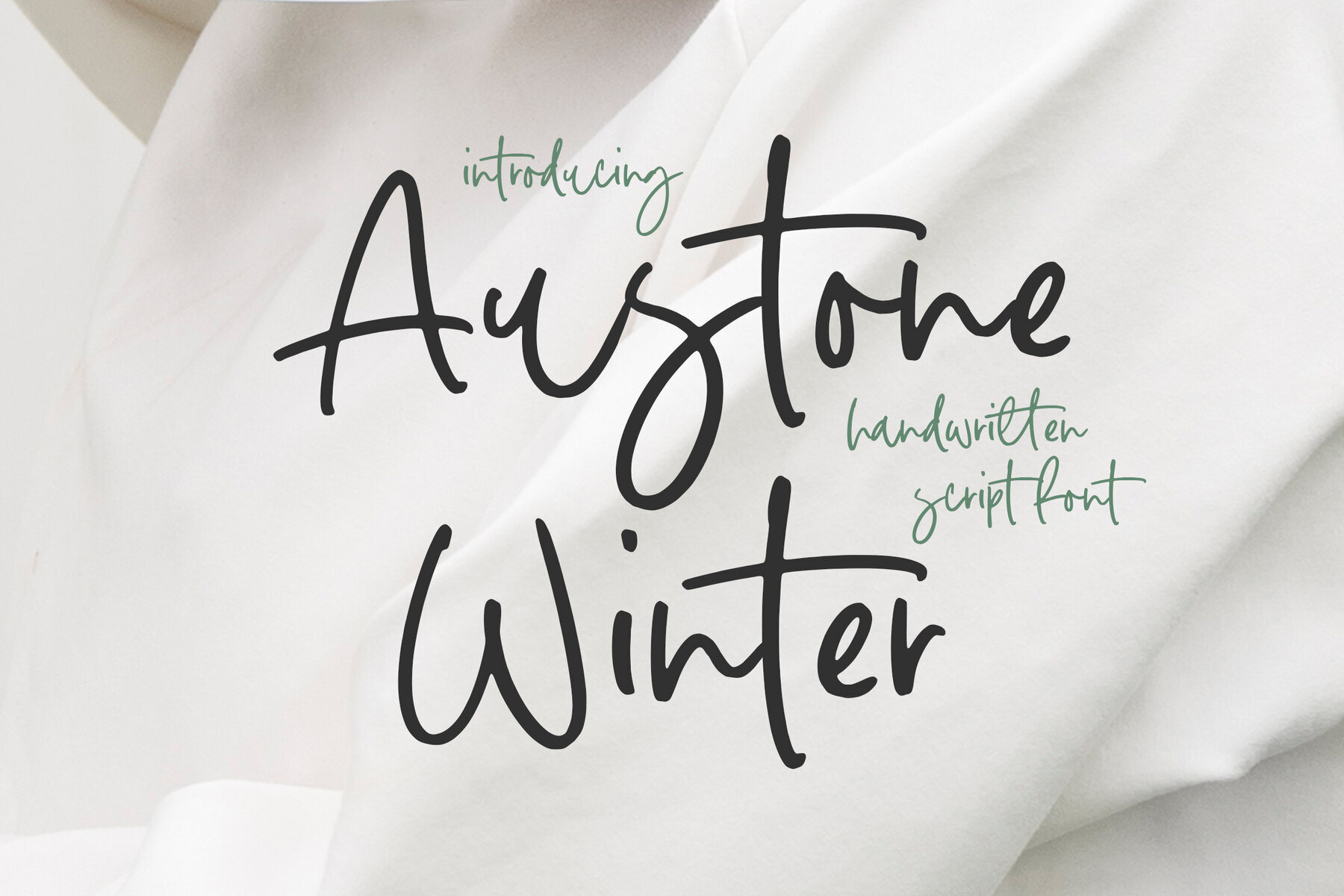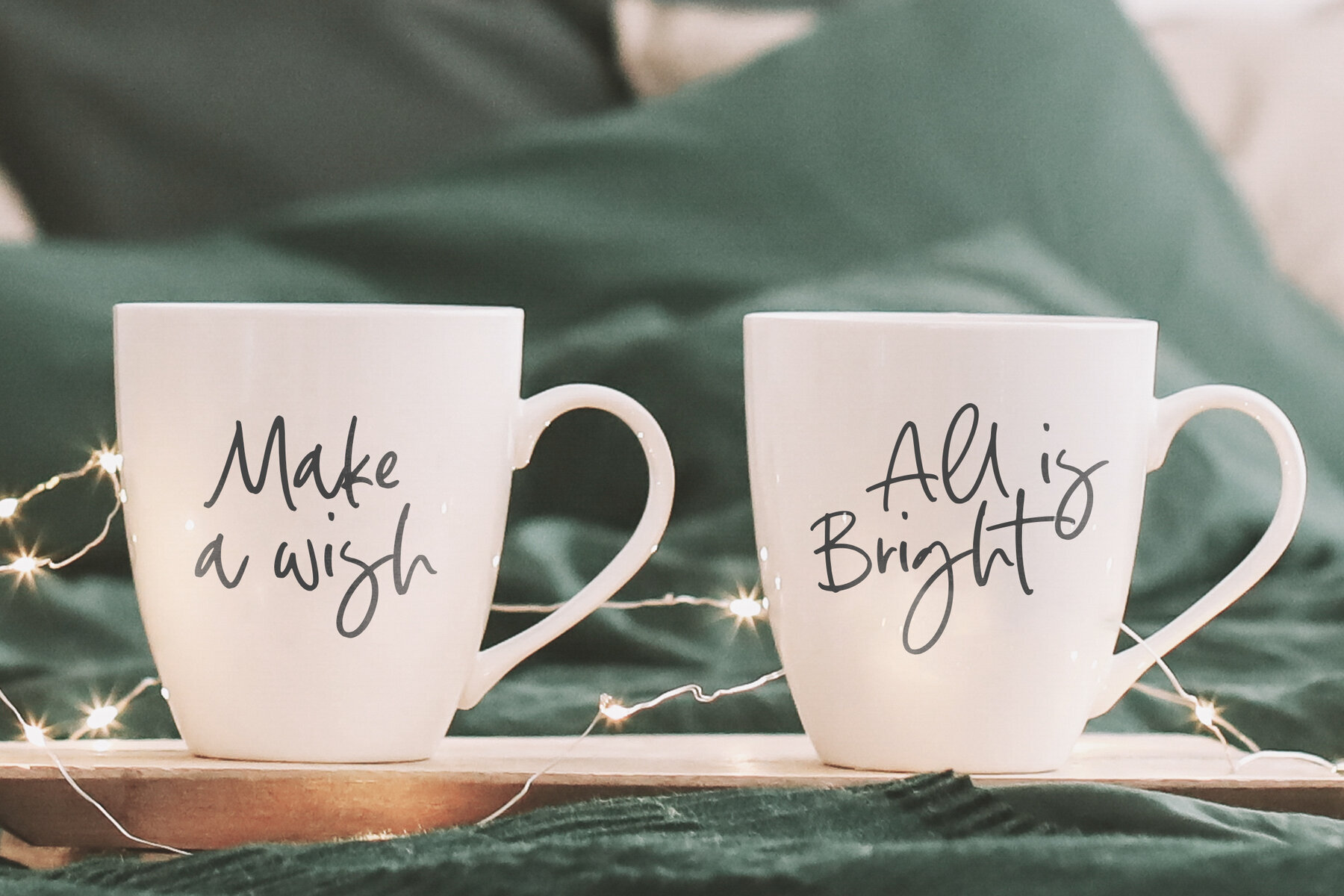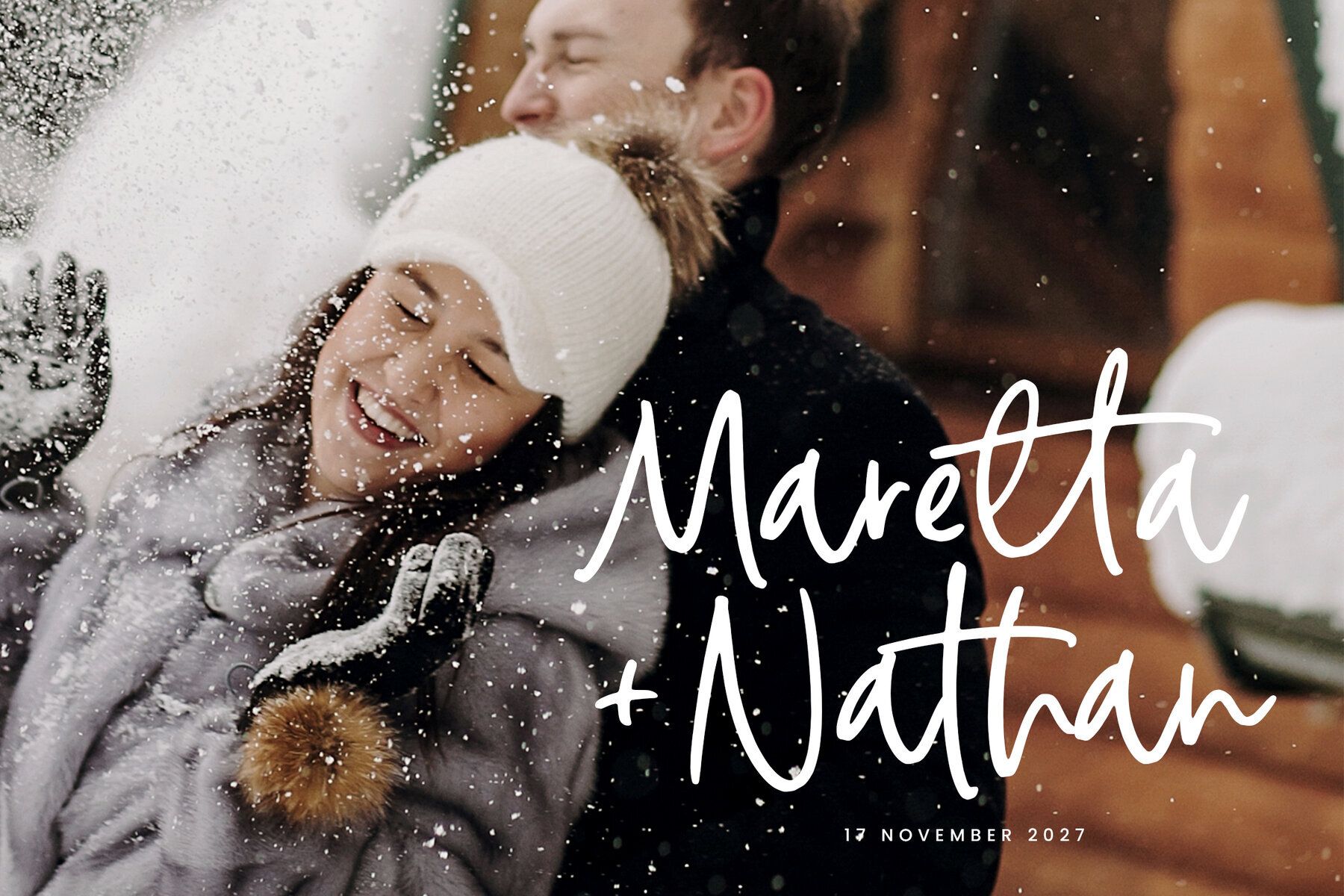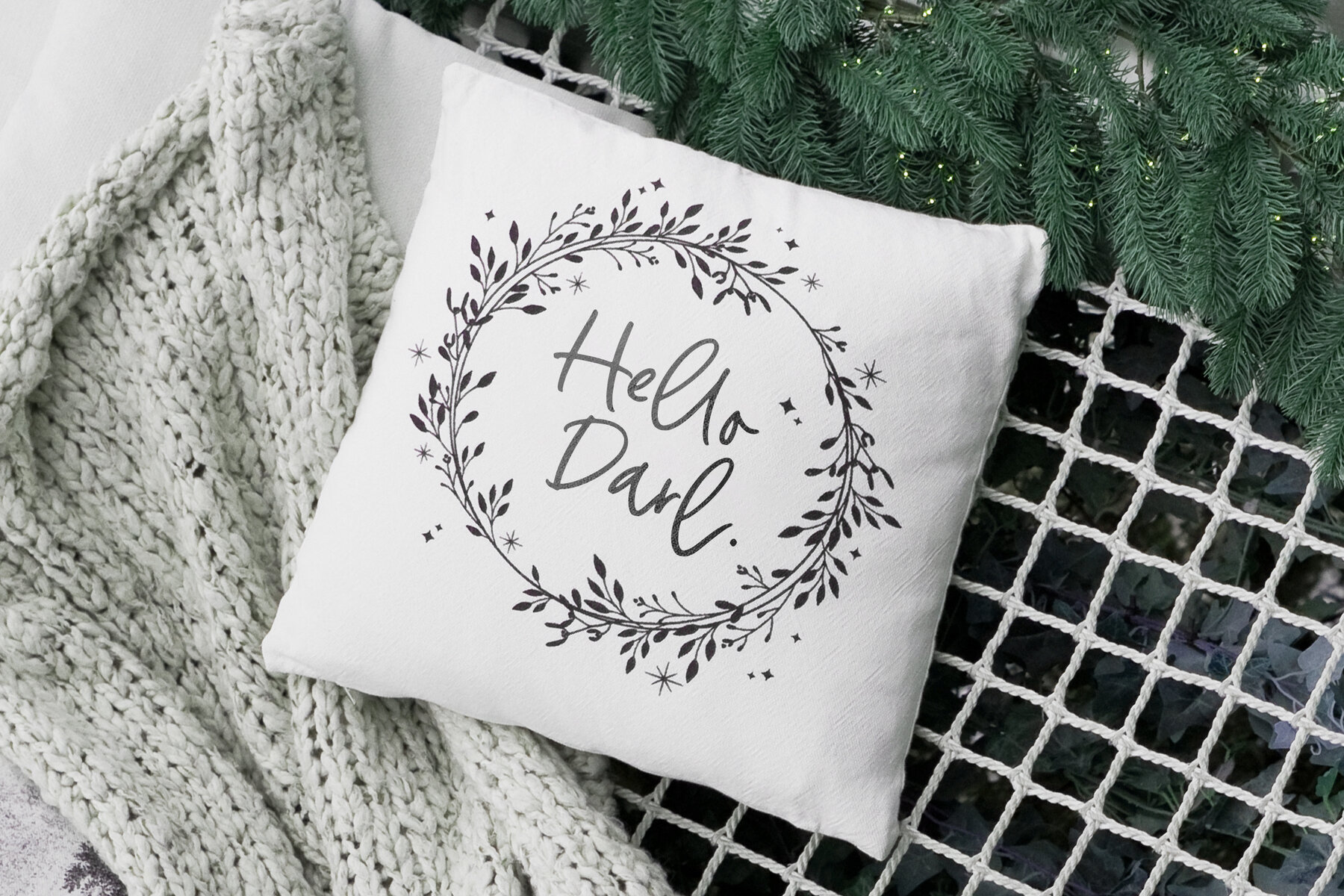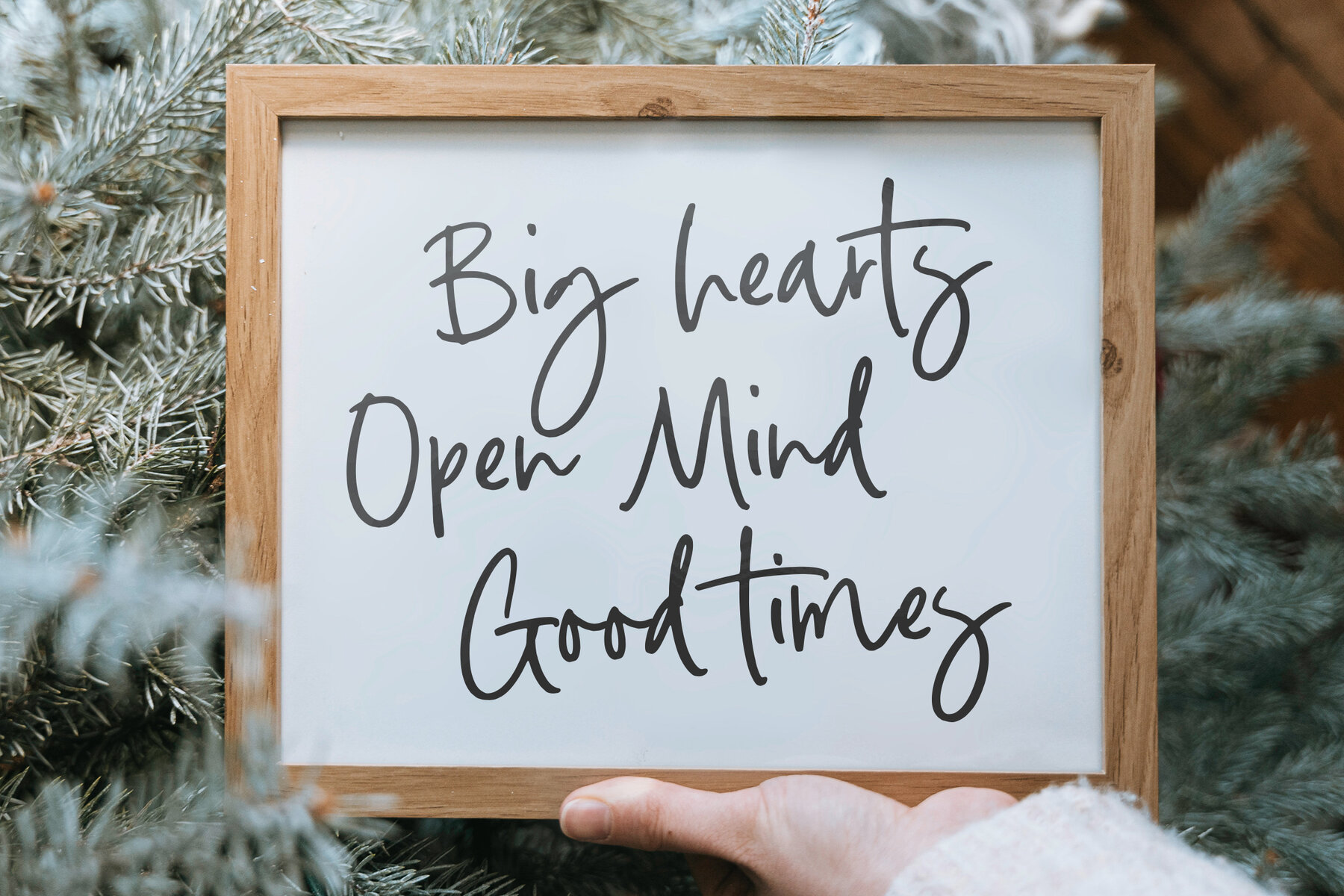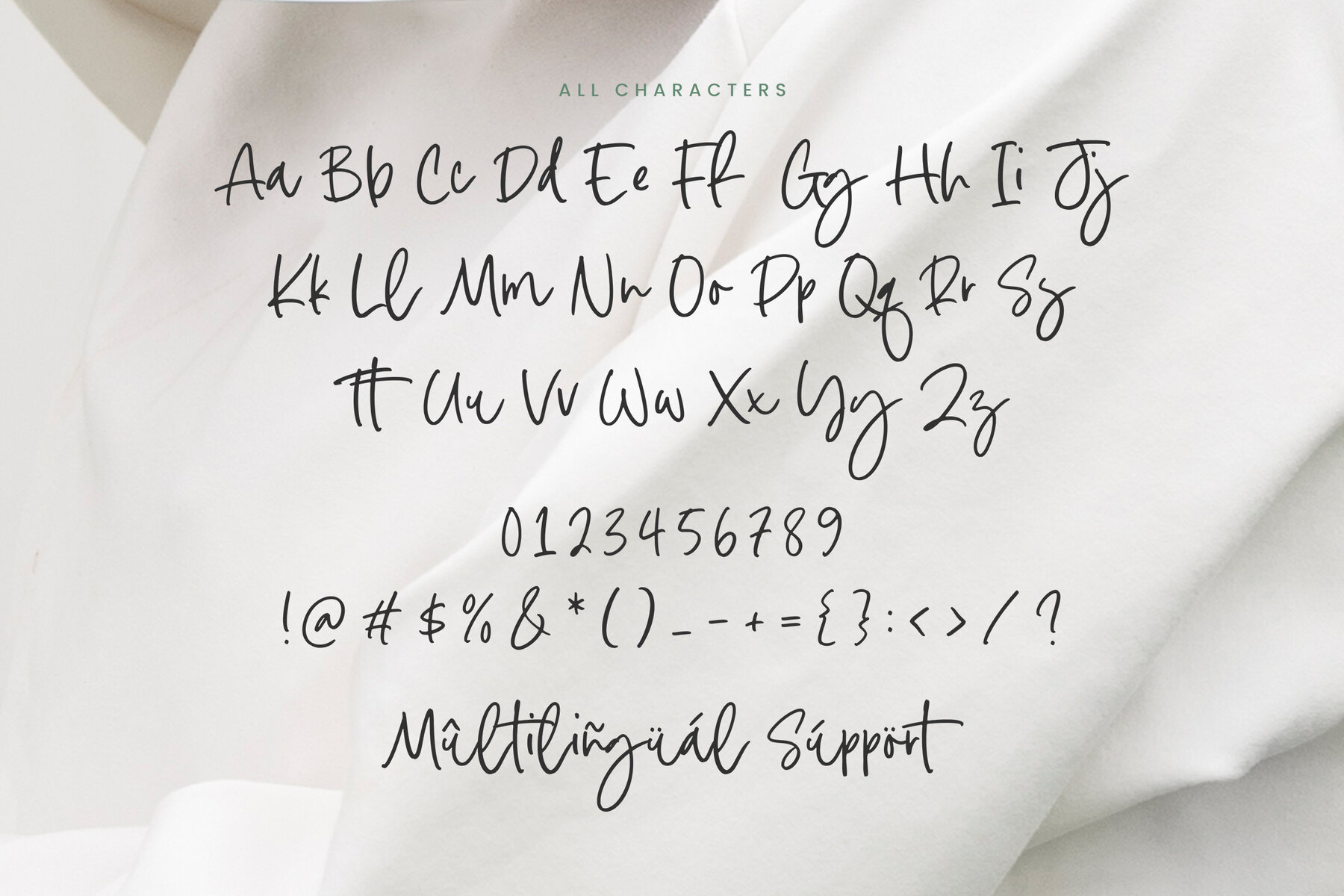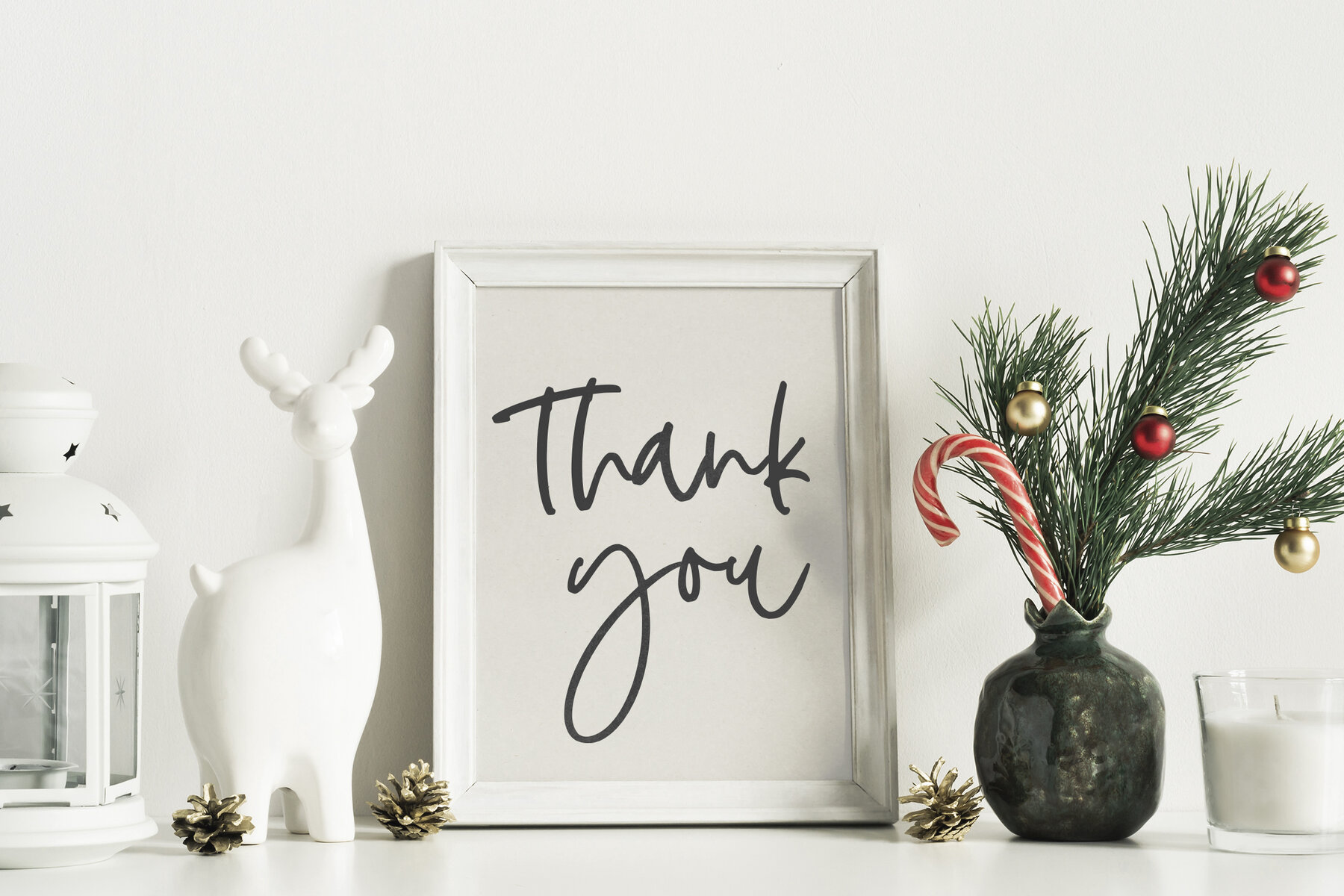
Austone Winter Font
Austone Winter
Austone Winter is an elegant handwritten script font that captures the essence of classic calligraphy with a modern flair. Its flowing, cursive strokes and graceful curves exude warmth and sophistication, making it an ideal choice for wedding invitations, greeting cards, and seasonal designs. The font's unique character set, complete with gentle flourishes and balanced letterforms, evokes the beauty and tranquility of winter, adding a personal handwritten touch to any project.
Designed to convey the charm of traditional calligraphy with a contemporary twist, Austone Winter offers a seamless blend of warmth and elegance. Its design communicates a sense of calm and sophistication, perfect for projects requiring a distinctive handwritten style. Whether you're creating festive invitations, heartfelt notes, or personalized stationery, Austone Winter brings an added layer of charm and refinement to your designs.